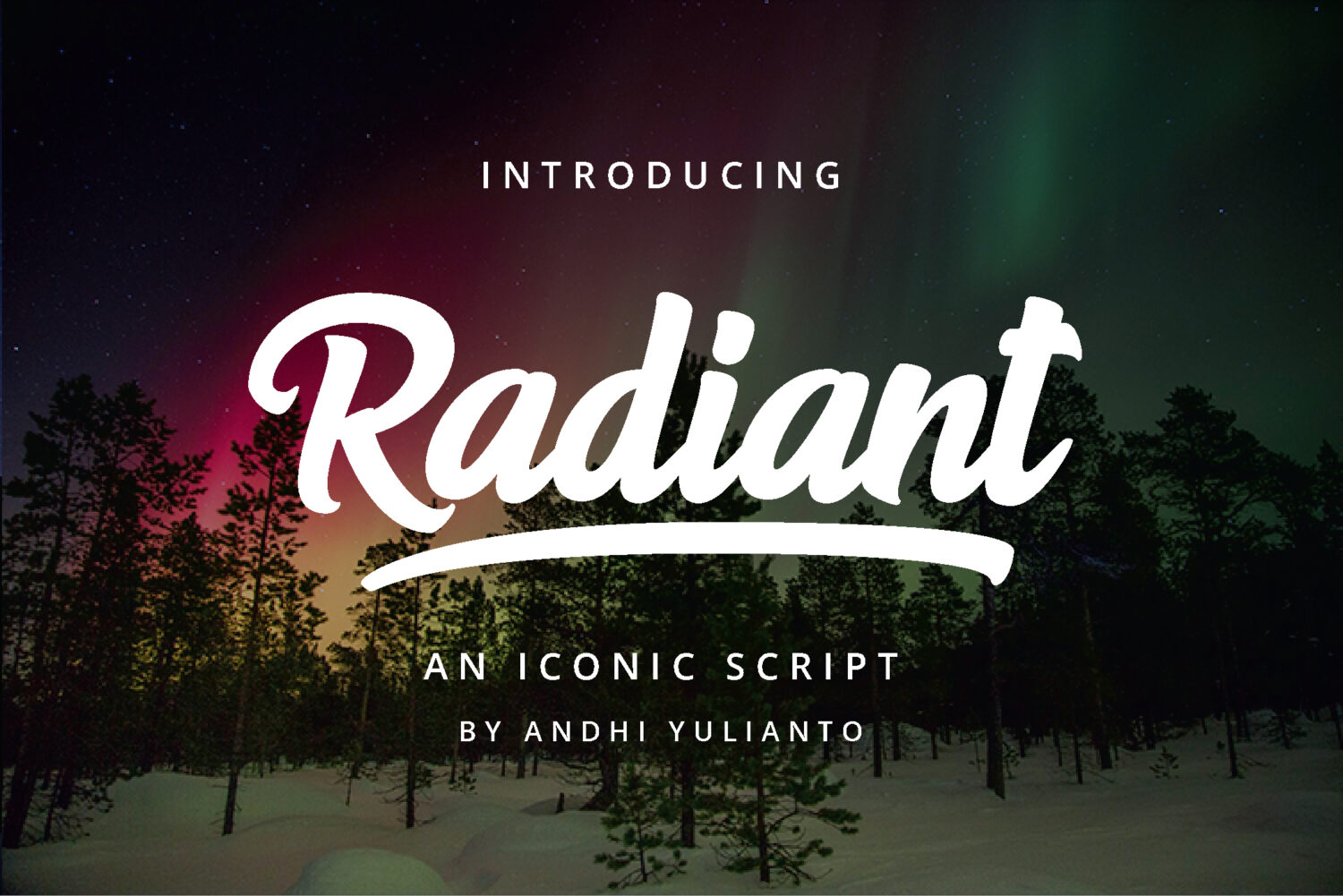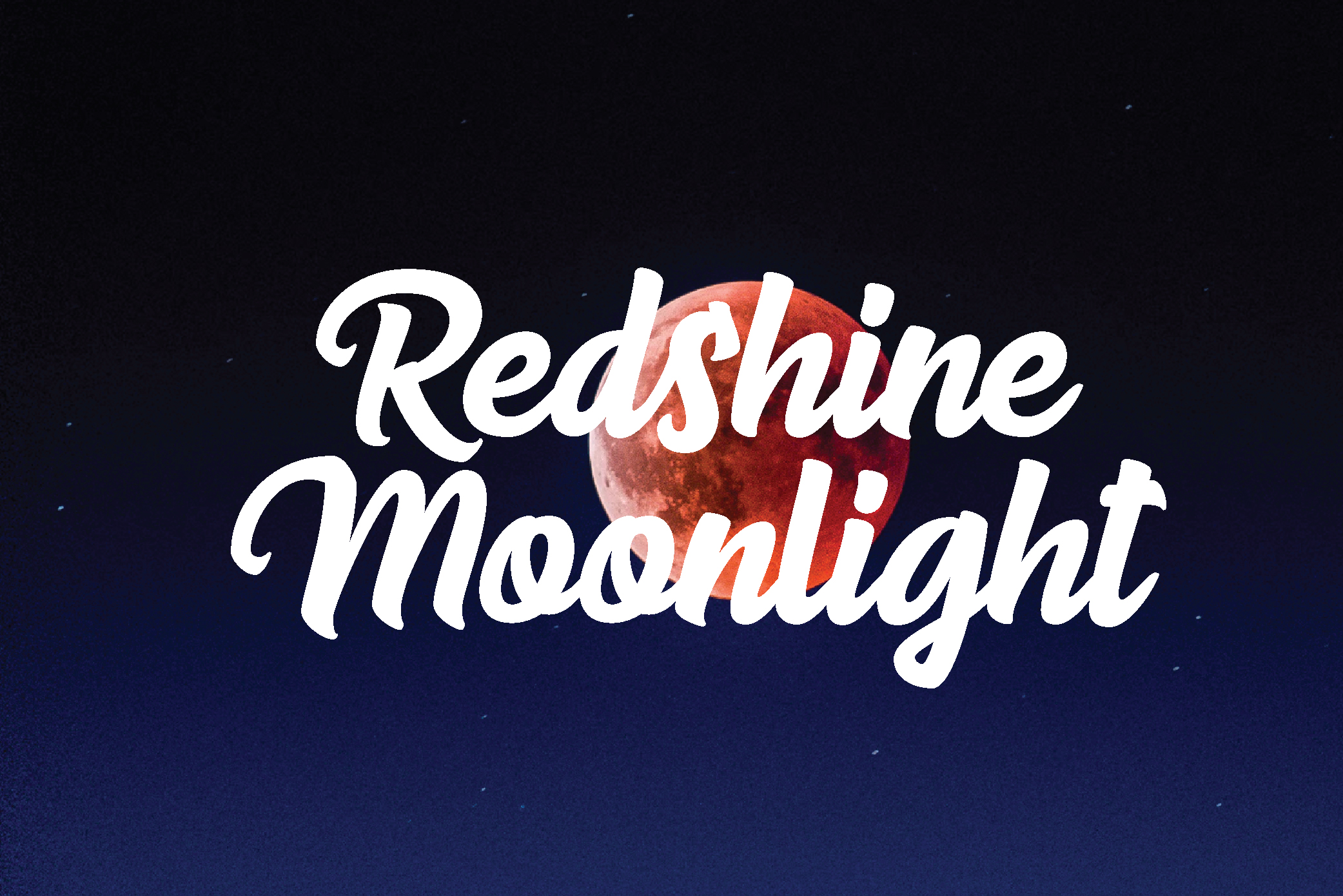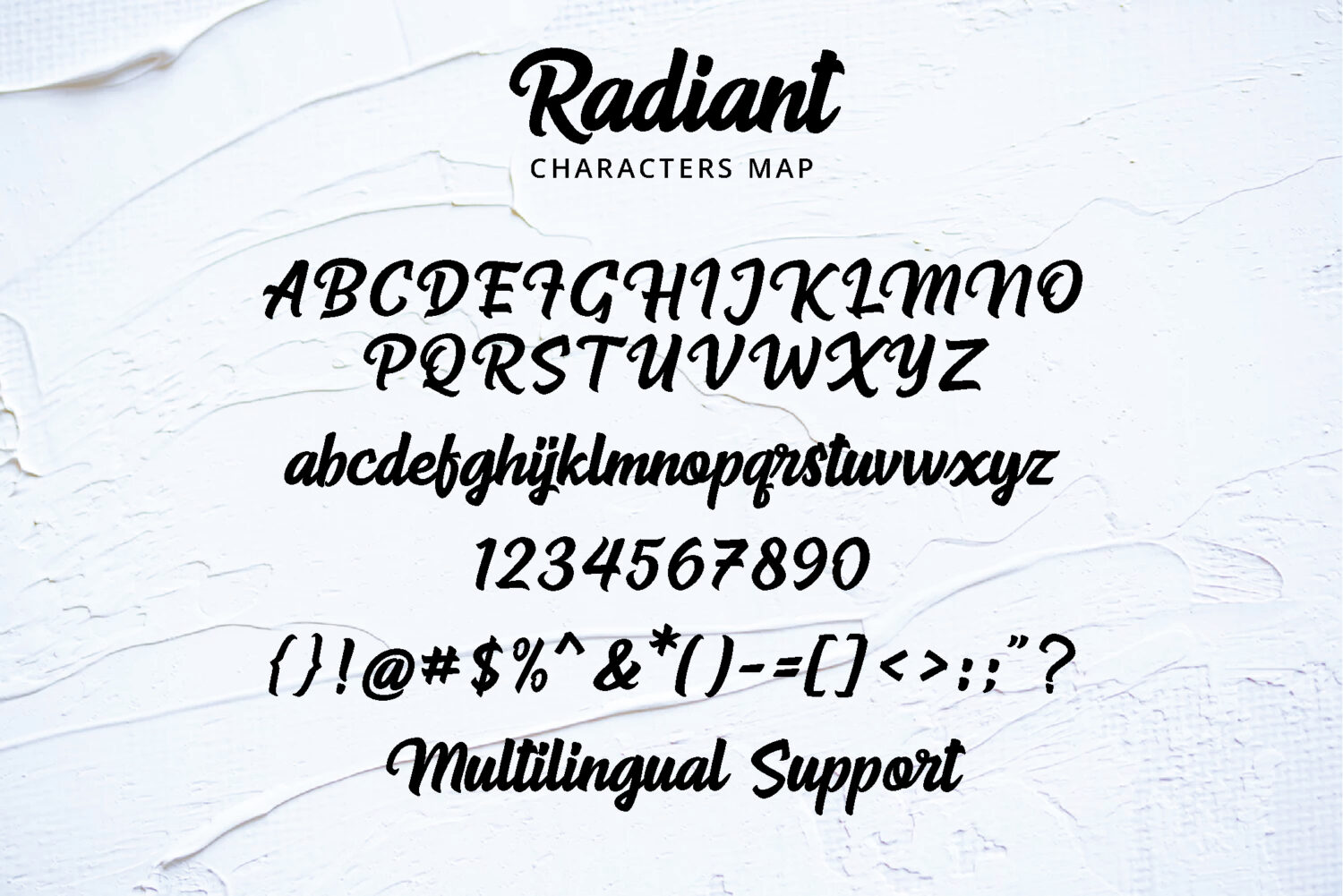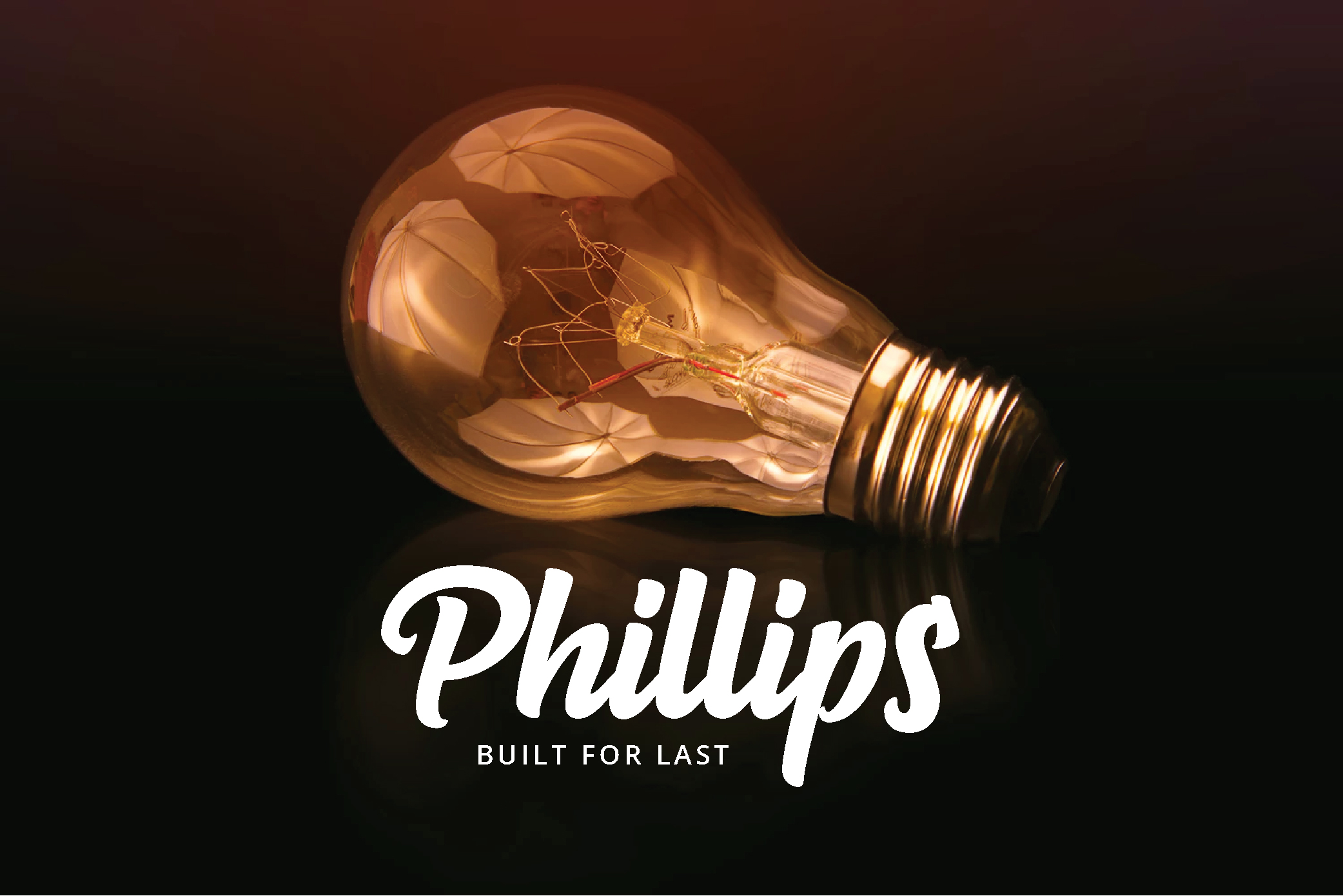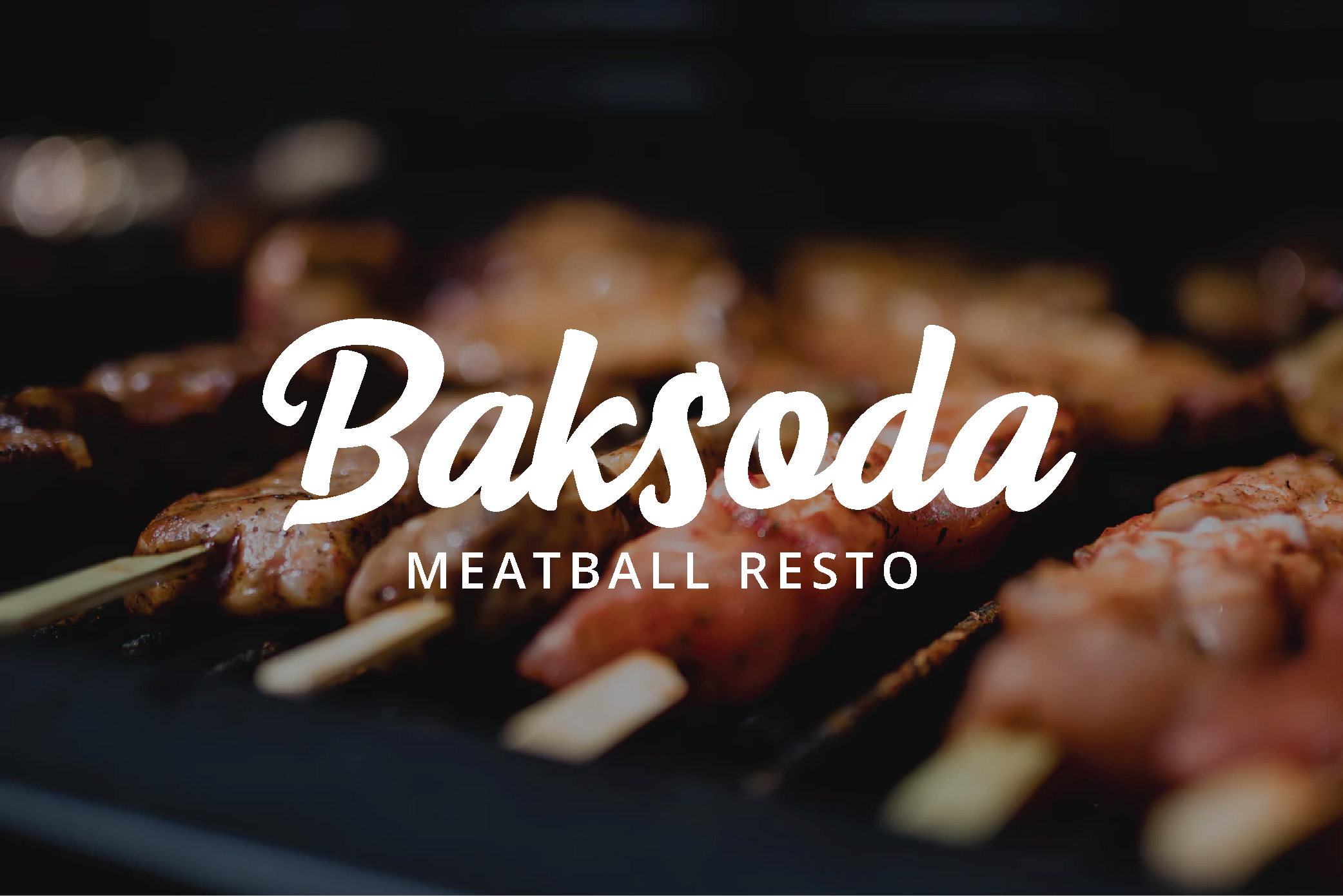
Radiant Iconic Script Free Font
Radiant Iconic Script Free Font is a bold typeface, incredible font to make an iconic wordmark, logotype, typography. A simple script but also powerful for a branding project, it is easy to use. Radiant Iconic Script Free Font was made with a manual handwritten with a brush pen then carefully digitalize using vector software to make it nice and correctly proportional. This free typeface was designed by a talented Andhi Yulianto. If you like it don’t forget to check out the full version.